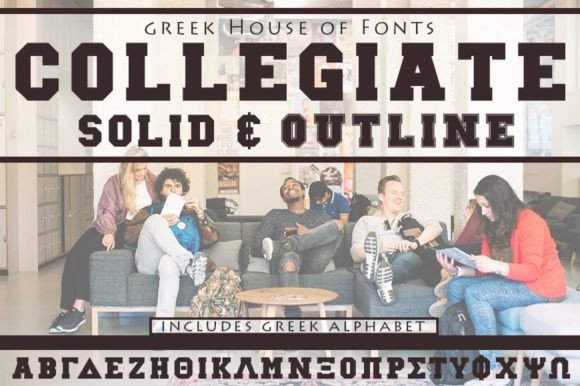
Introducing Collegiate Font, the ultimate choice for those seeking the best fonts for Greek letters! Created by the talented phelan.riessen, this font is not your average display font. It is a fun and unique masterpiece that will surely captivate your imagination.
Collegiate Font is more than just a typeface. It is a gateway to a world of endless creativity and inspiration. With its meticulously crafted design, each character exudes a sense of playfulness and charm, making it perfect for any project that requires a touch of personality.
When it comes to showcasing your Greek letters, Collegiate Font truly shines. Its distinct and eye-catching style elevates your words, giving them a powerful presence that demands attention. Whether you're designing fraternity or sorority merchandise, creating sports team logos, or crafting eye-catching signage, this font will make your Greek letters stand out from the crowd.
But Collegiate Font is not only about aesthetics; it also offers exceptional versatility. From bold headlines to elegant invitations, this font effortlessly adapts to any design concept you have in mind. Its versatility allows you to explore various creative avenues, ensuring that your projects always leave a lasting impression.
Imagine the impact Collegiate Font will have on your digital or print designs. Its dynamic curves, sharp edges, and impeccable letterforms create a visual feast for the eyes. Your audience won't be able to resist the allure of these captivating characters, drawing them in and making your message unforgettable.
Embrace the power of Collegiate Font and let your imagination run wild. Express your artistic vision with confidence, knowing that this font will take your ideas to new heights. Whether you're a graphic designer, a branding expert, or a DIY enthusiast, this font is a must-have in your collection.
In conclusion, Collegiate Font is more than just a font; it's a gateway to boundless creativity. Let it be your partner in design, your secret weapon for captivating your audience, and your key to unlocking a world of possibilities. Download Collegiate Font today and embark on a journey of visual brilliance!